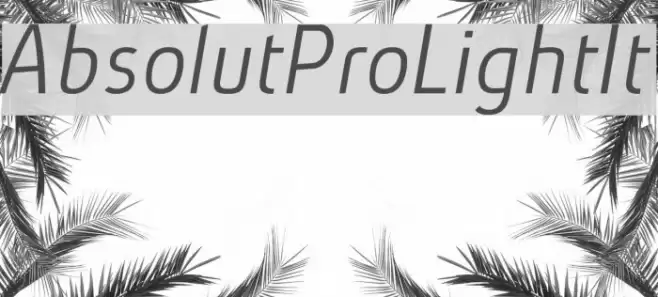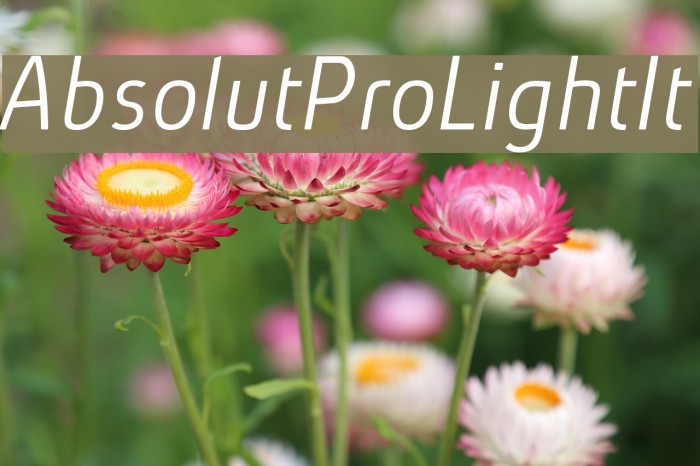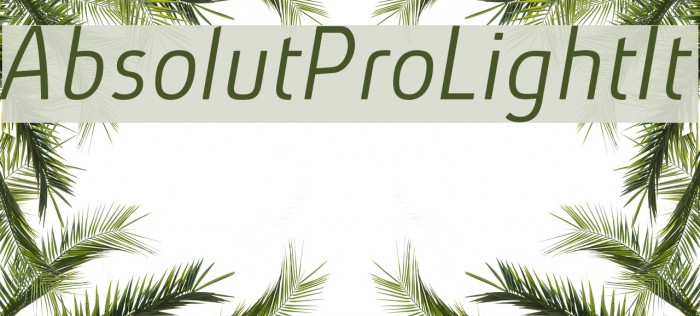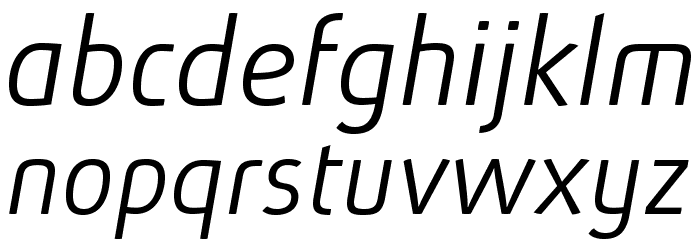
AbsolutPro-LightIt Font
AbsolutPro-LightIt Description
This font features a sleek and modern design with a slight italic slant, giving it a dynamic and forward-moving appearance. The characters are clean and streamlined, with a consistent stroke width that maintains a light and airy feel. The uppercase and lowercase letters are well-proportioned, and the numerals are clear and easy to read. The overall style is minimalist, making it suitable for contemporary design projects. The font's simplicity and elegance make it versatile for various applications, from digital interfaces to print media.
A sleek, modern, and slightly italic font with a minimalist design from Uncategorized fonts.
- Proposed Projects: Ideal for branding, digital interfaces, modern print media, and minimalist design projects.